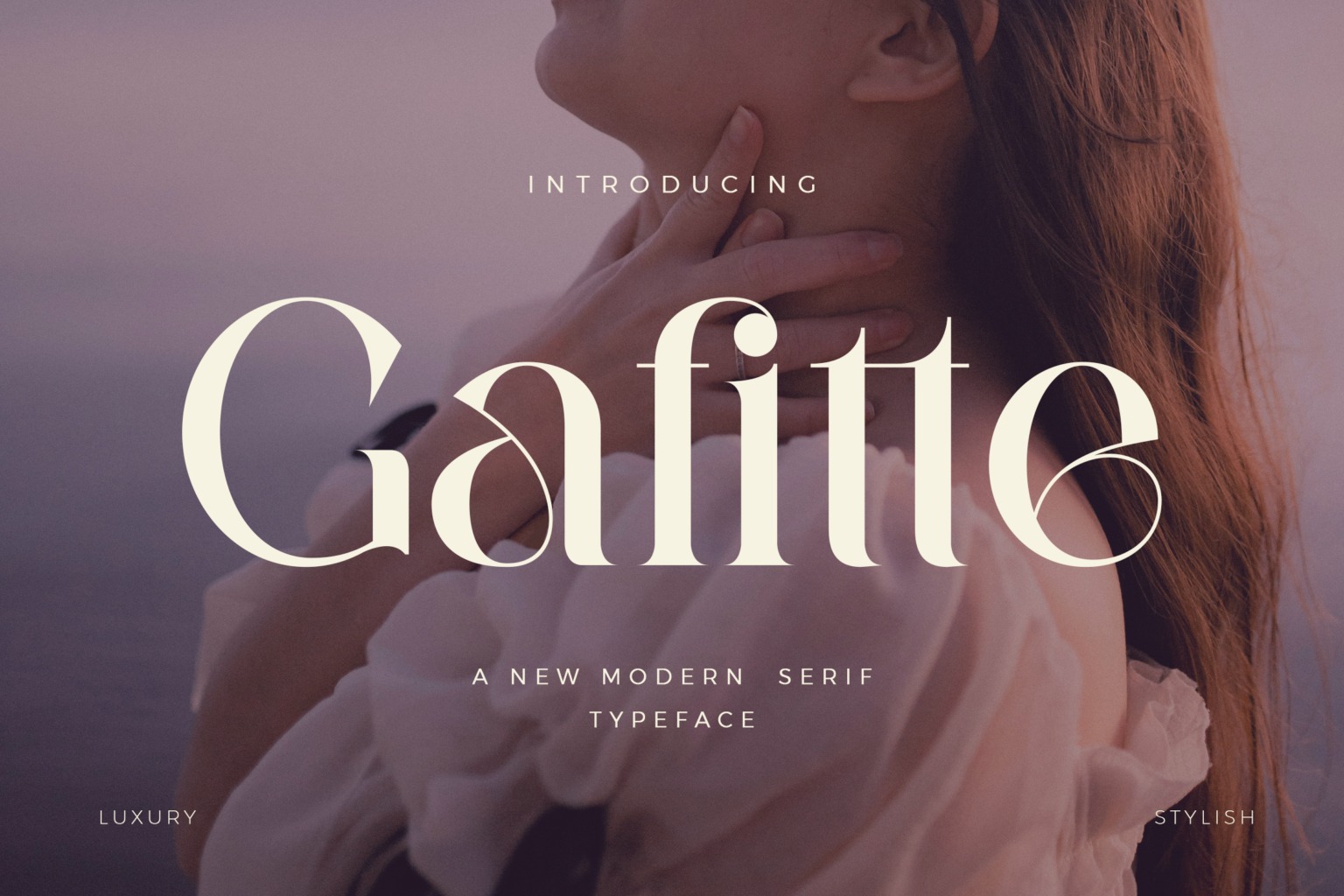
Gafitte Font
Gafitte Font is a premium-quality font developed to enhance your work with a polished, modern, and visually elevated look. Gafitte Stylish Ligature Typeface, inspired by the famous minimalist logo perfect for the purposes of designing templates, brochures, videos, advertising branding, logos and more.